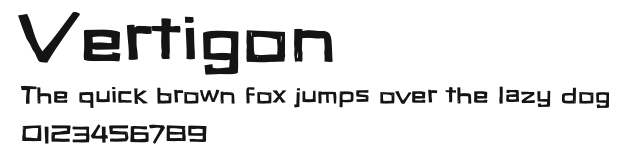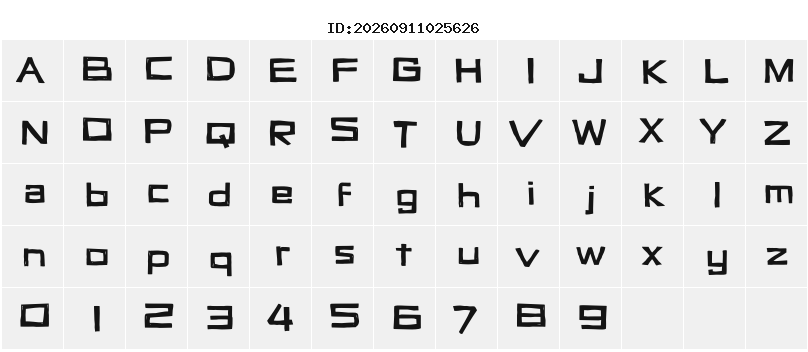
• Font Name: Vertigon
• Full Font Name: Vertigon
• Designer: Andrew Bertram
• Description: Respect to Saul Bass. Copyright 1997. Not recommended for use in formats less than 70mm.
About Vertigon.otf
Vertigon.otf is a modern, elegant sans-serif font designed for ultimate readability and visual harmony. Perfect for branding, headlines, web design, and print materials.